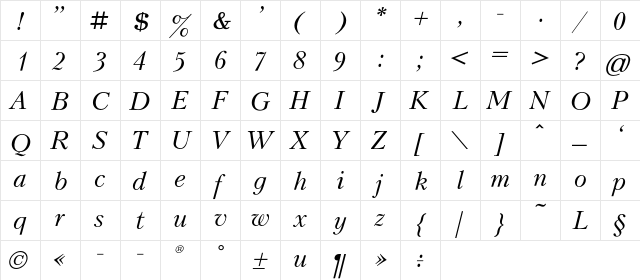
KudrashovC Italic
Design Context for KudrashovC Typeface
KudrashovC takes a measured approach to typography — its balanced proportions and neutral character make it a reliable workhorse for both digital and print work. Its italic angle brings a sense of urgency and motion to the letterforms.
Pro Tip: Try KudrashovC for annotation and caption copy alongside an upright companion — the contrast in angle creates a dynamic but ordered typographic system.